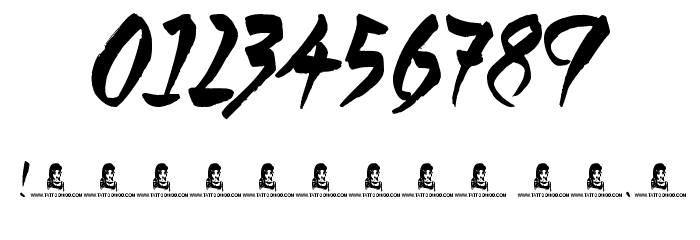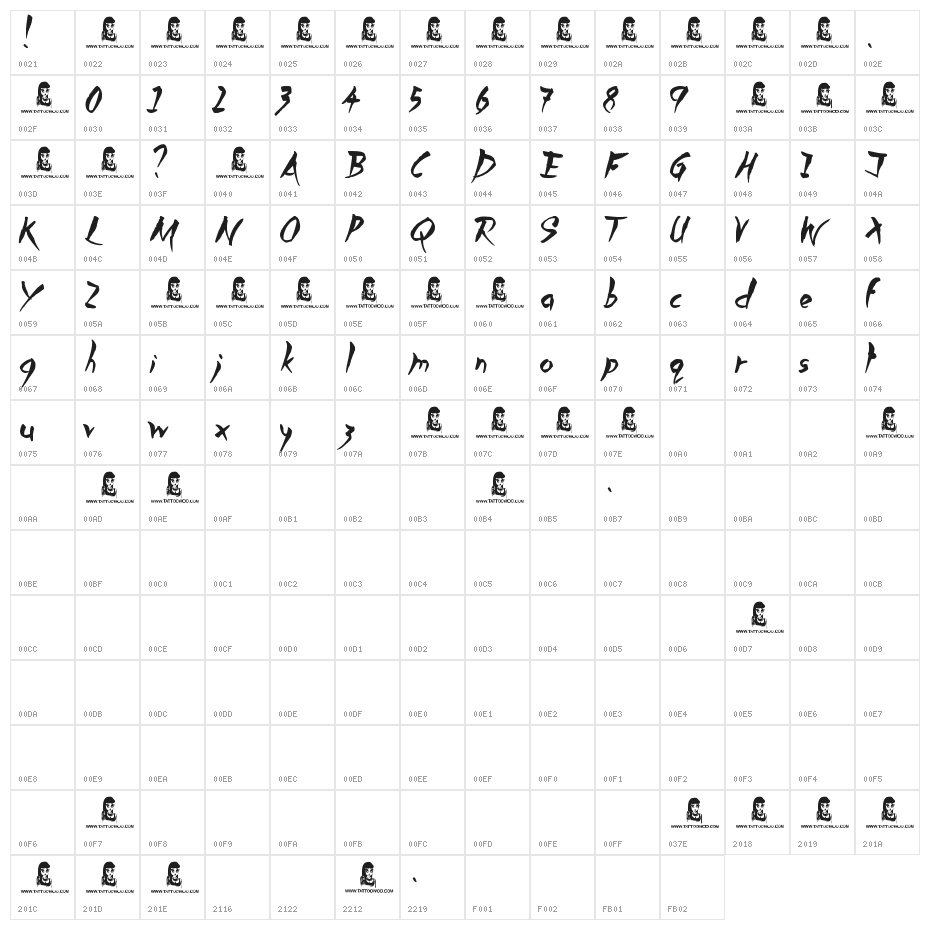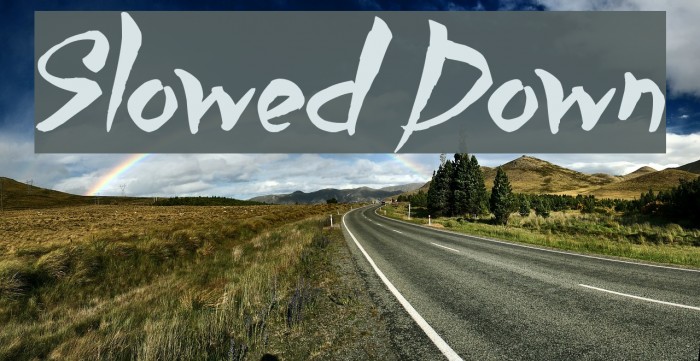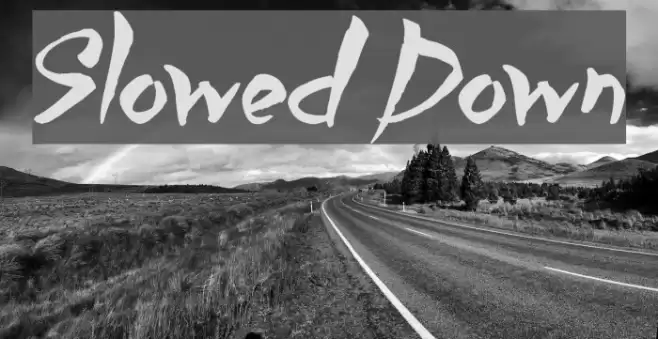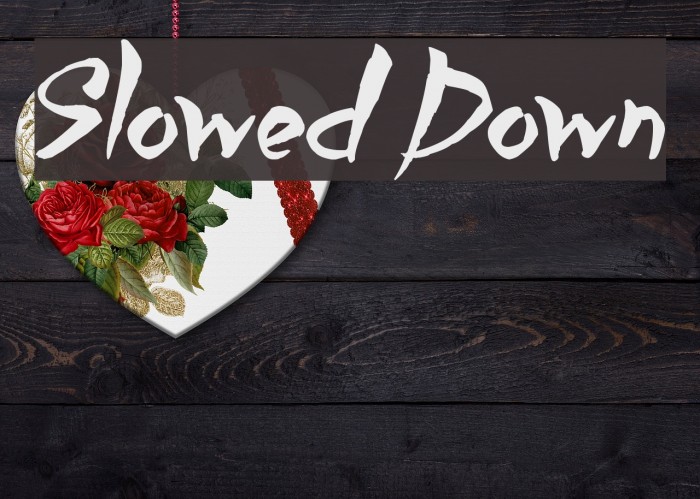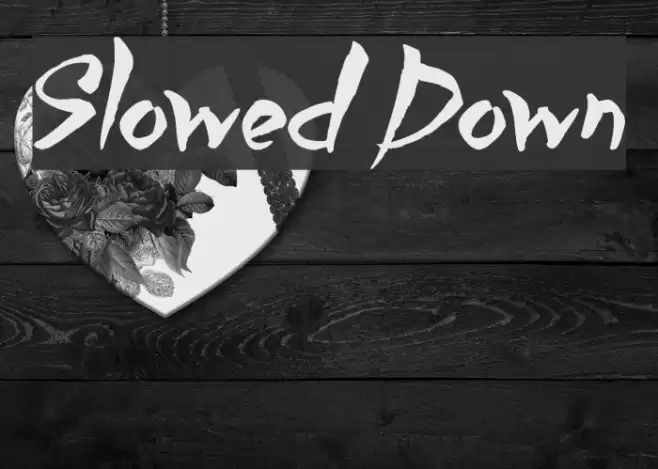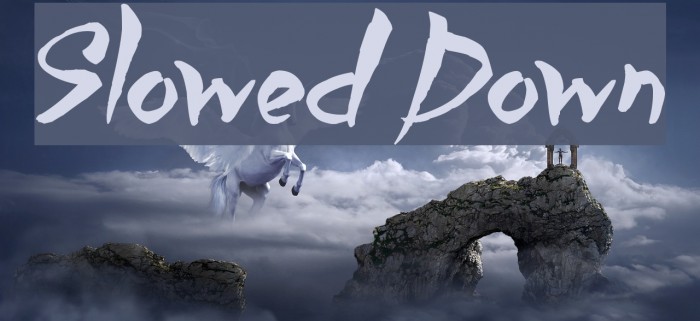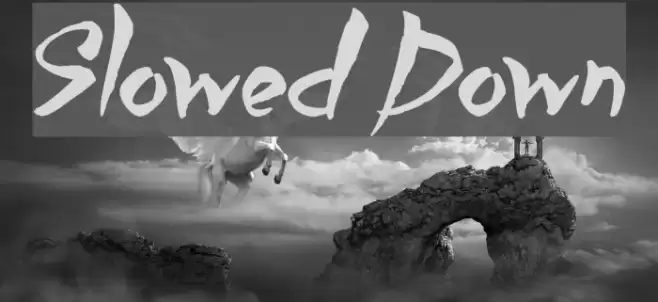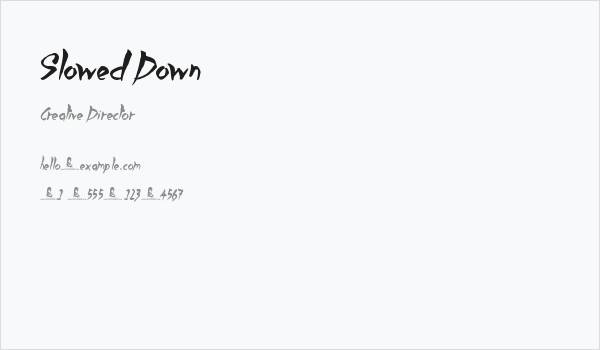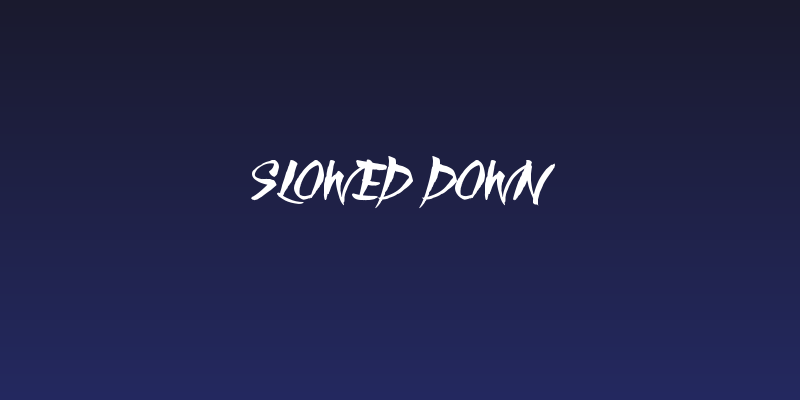
Slowed Down Font
Slowed Down Description
This font features a dynamic and energetic style, characterized by its bold, brush-like strokes that convey a sense of movement and fluidity. The uppercase letters are particularly striking, with sharp angles and varying stroke widths that create a dramatic effect. The lowercase letters maintain this expressive quality, with a slightly more relaxed form that complements the uppercase. Numbers and special characters are consistent with the overall aesthetic, ensuring a cohesive look. This font is ideal for projects that require a bold, artistic touch, such as posters, album covers, or branding materials that aim to capture attention and convey creativity.